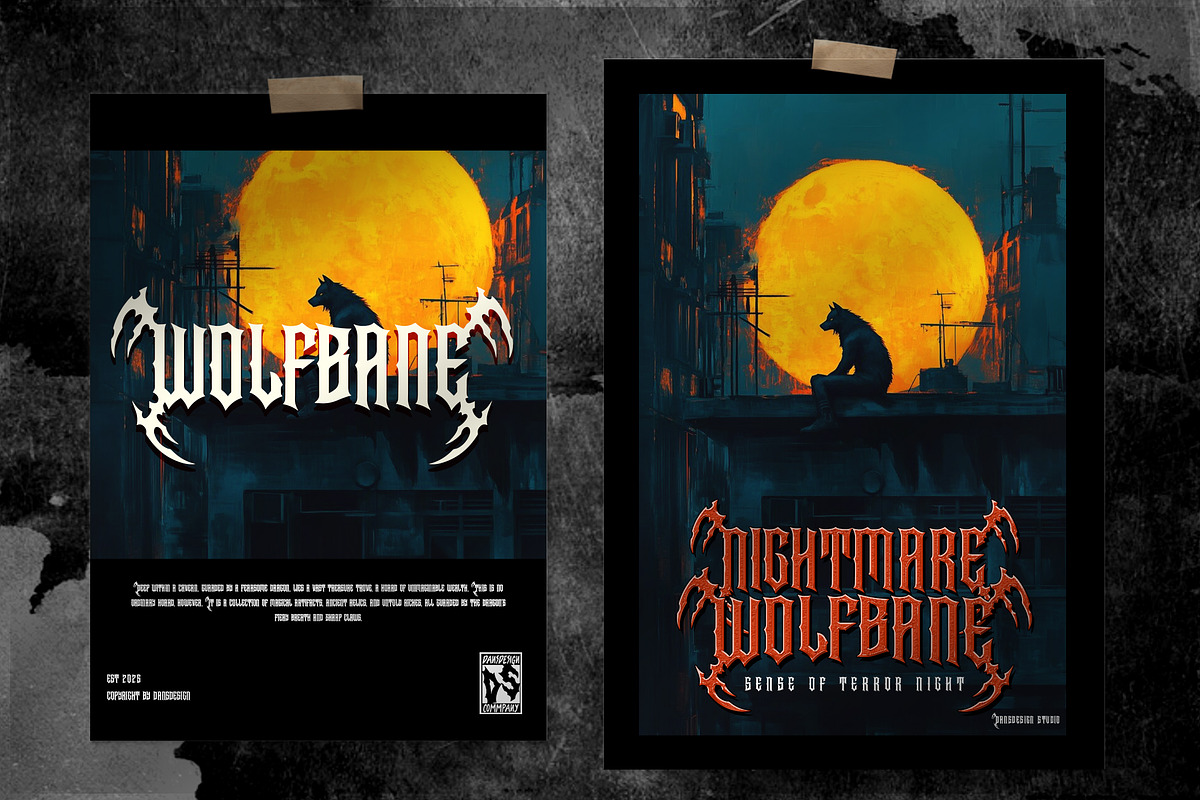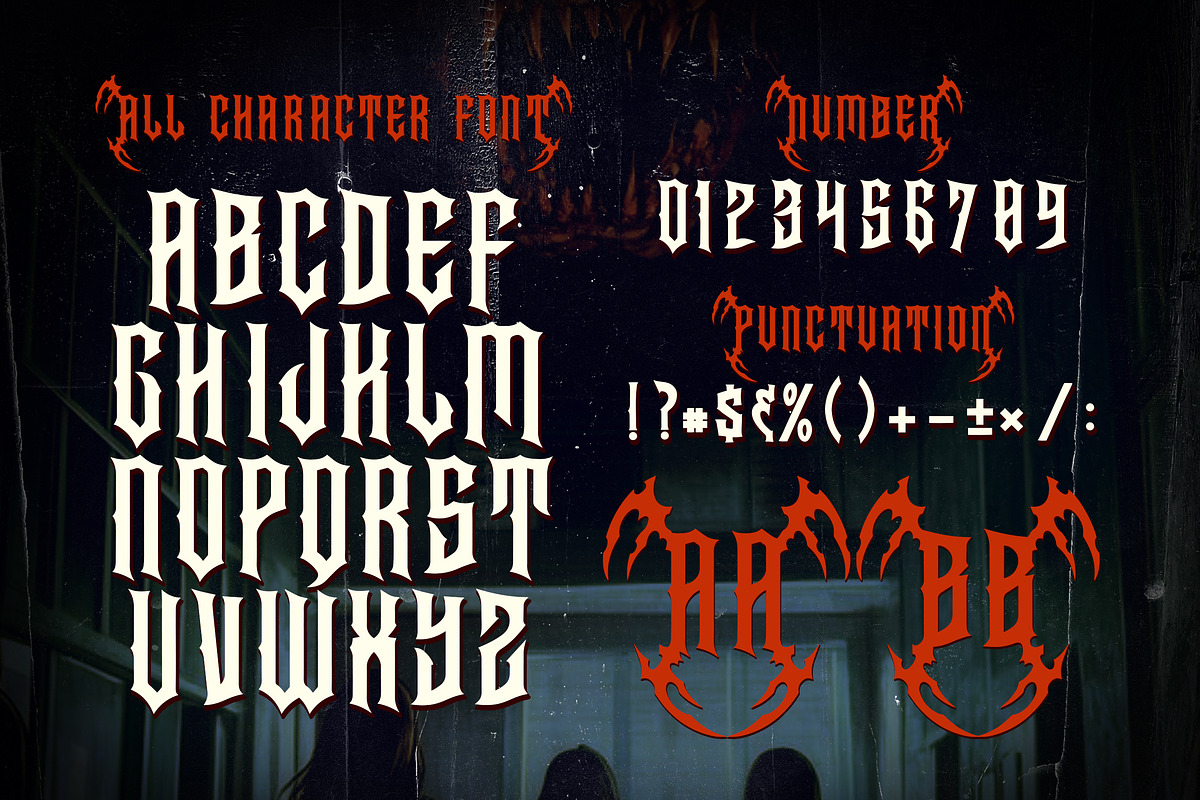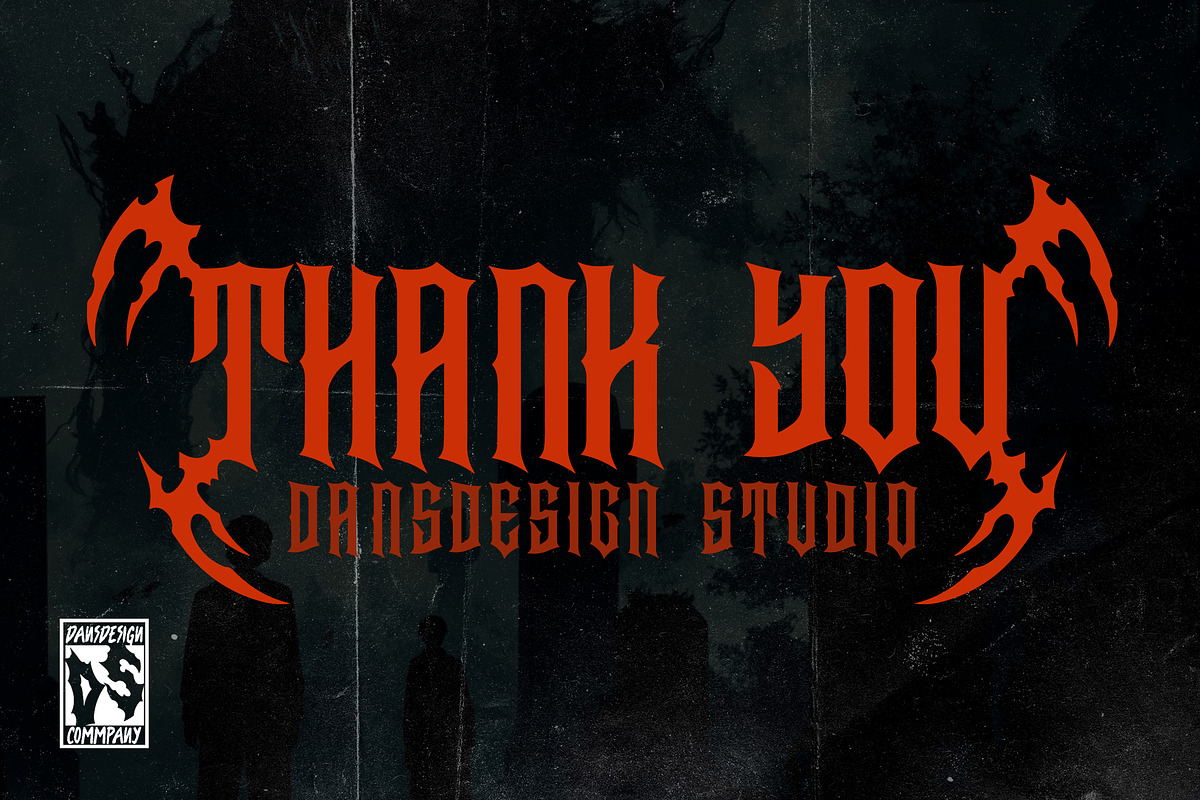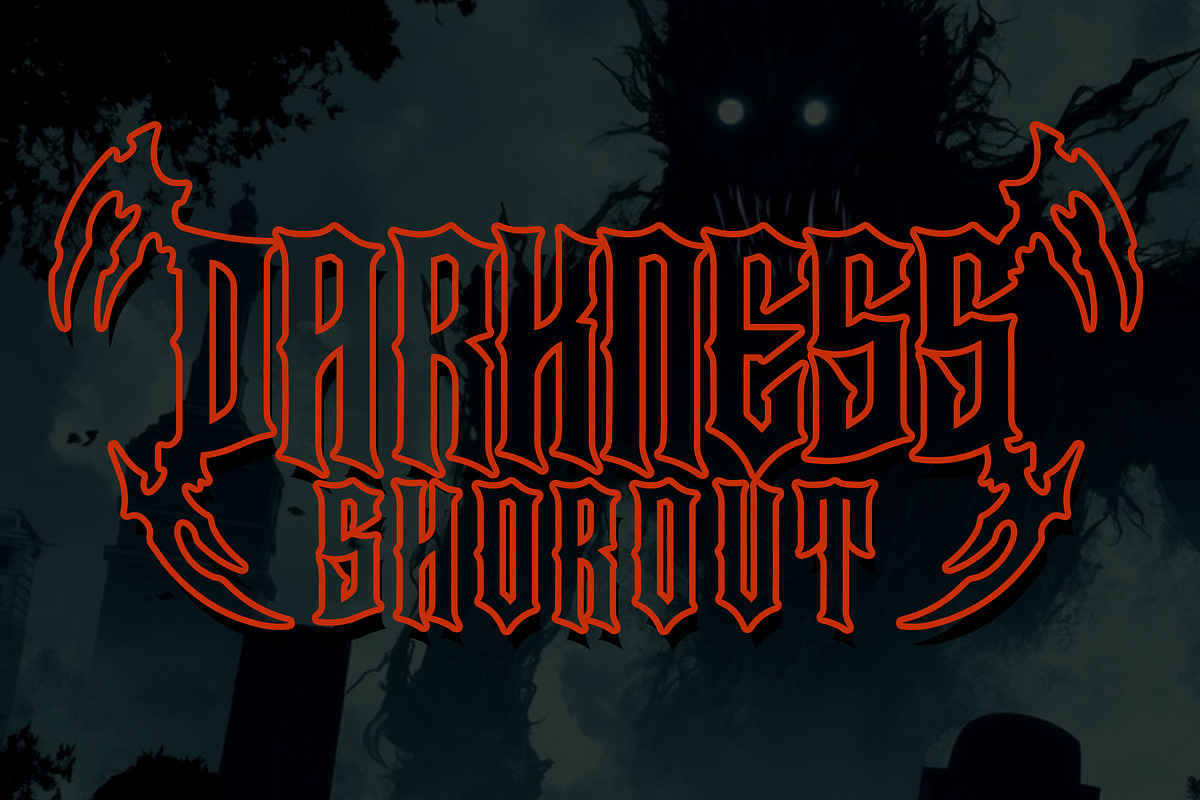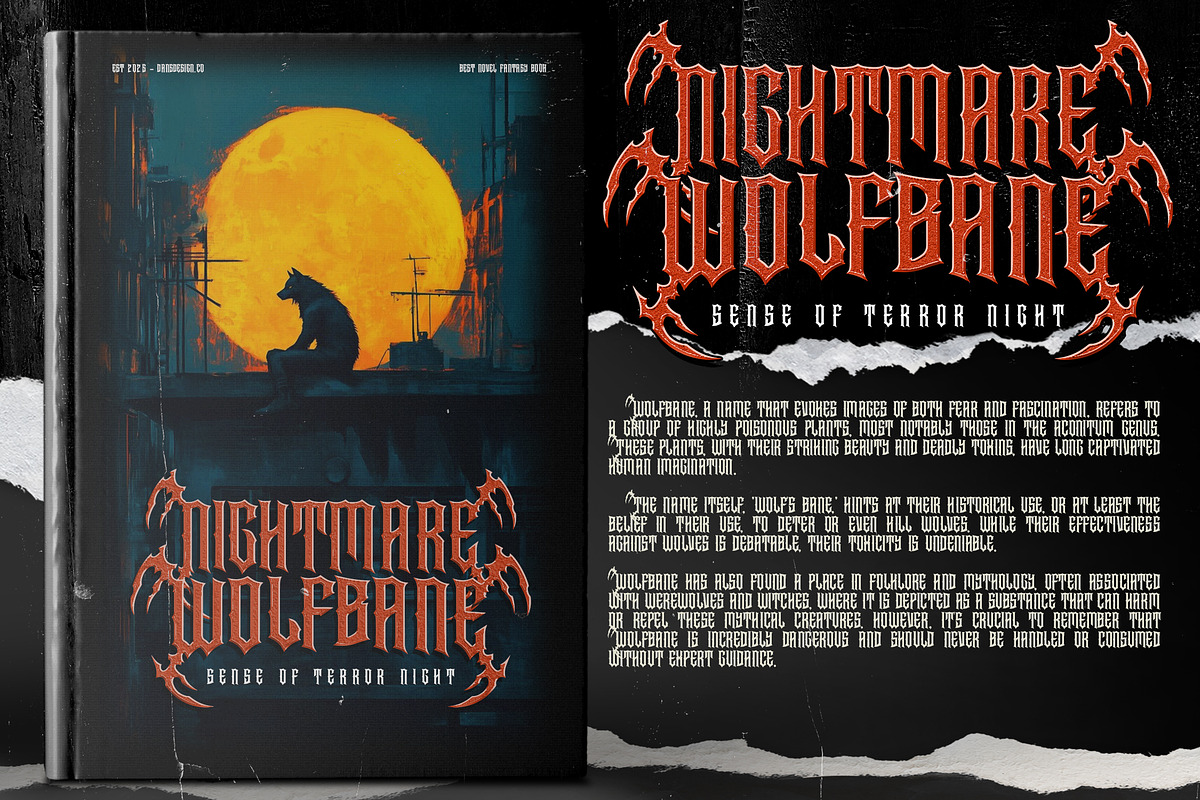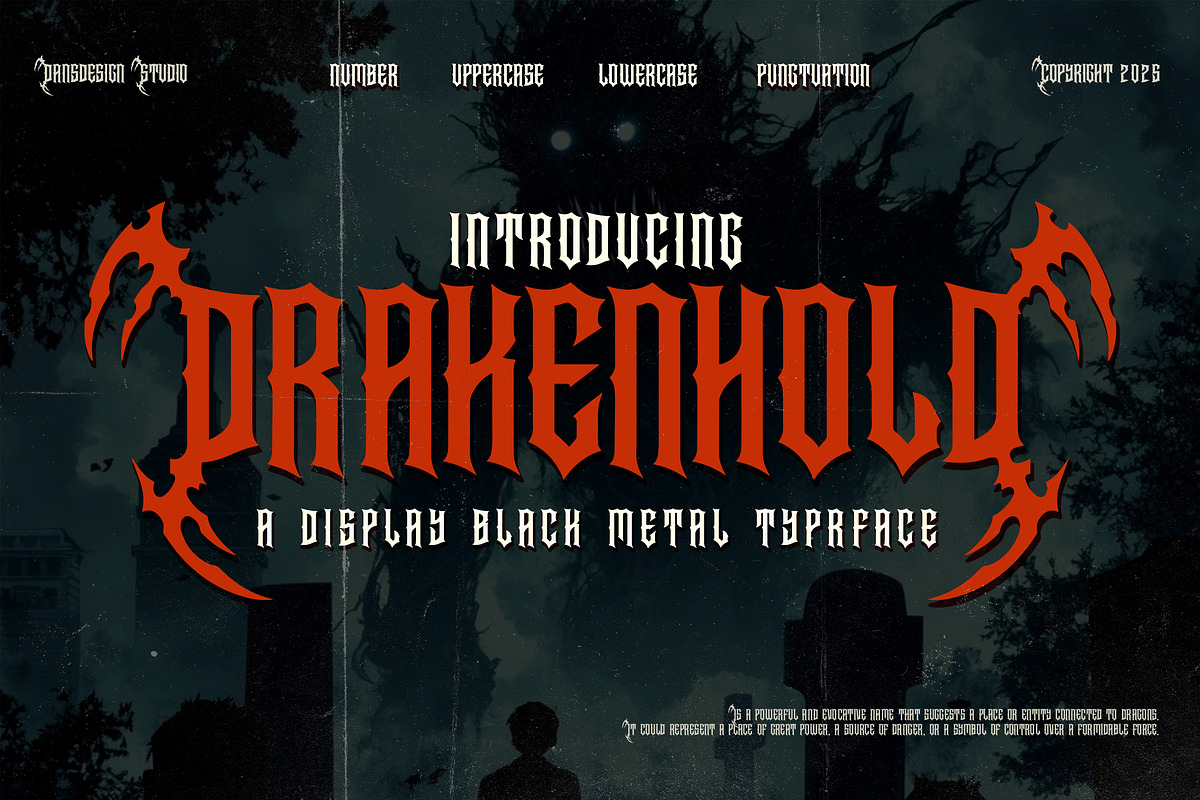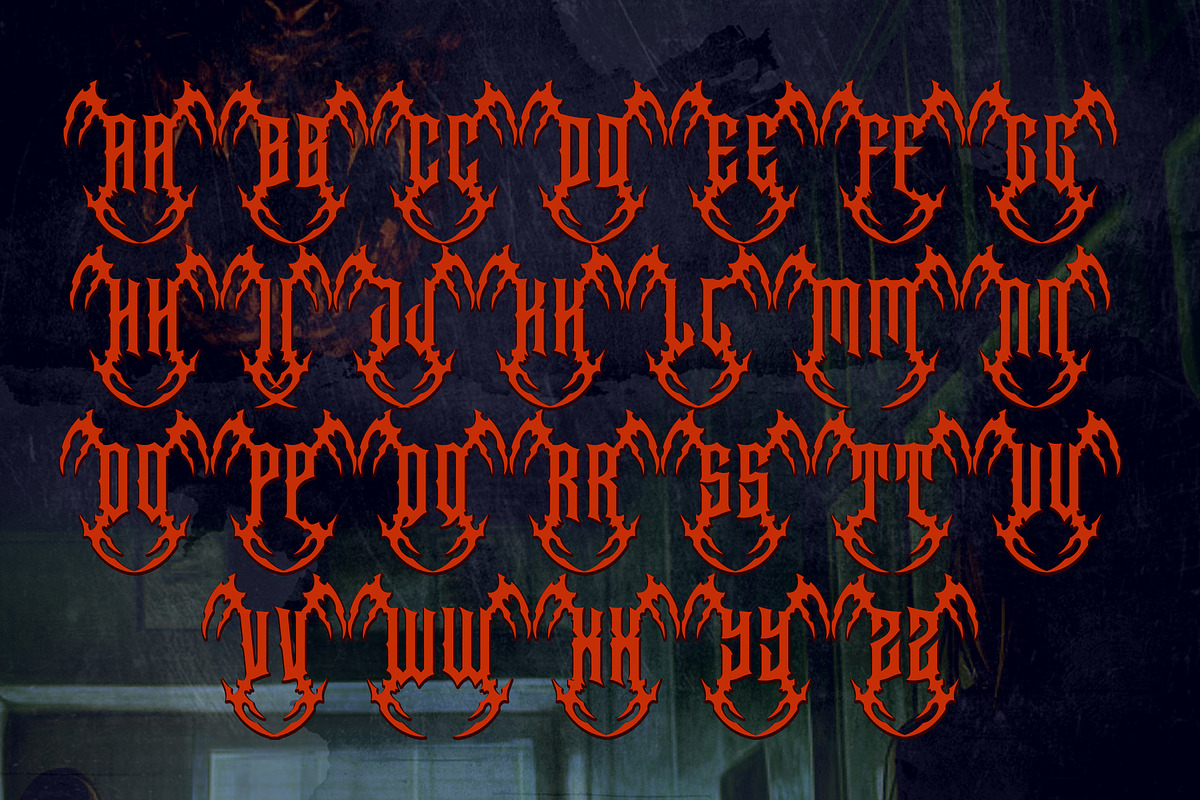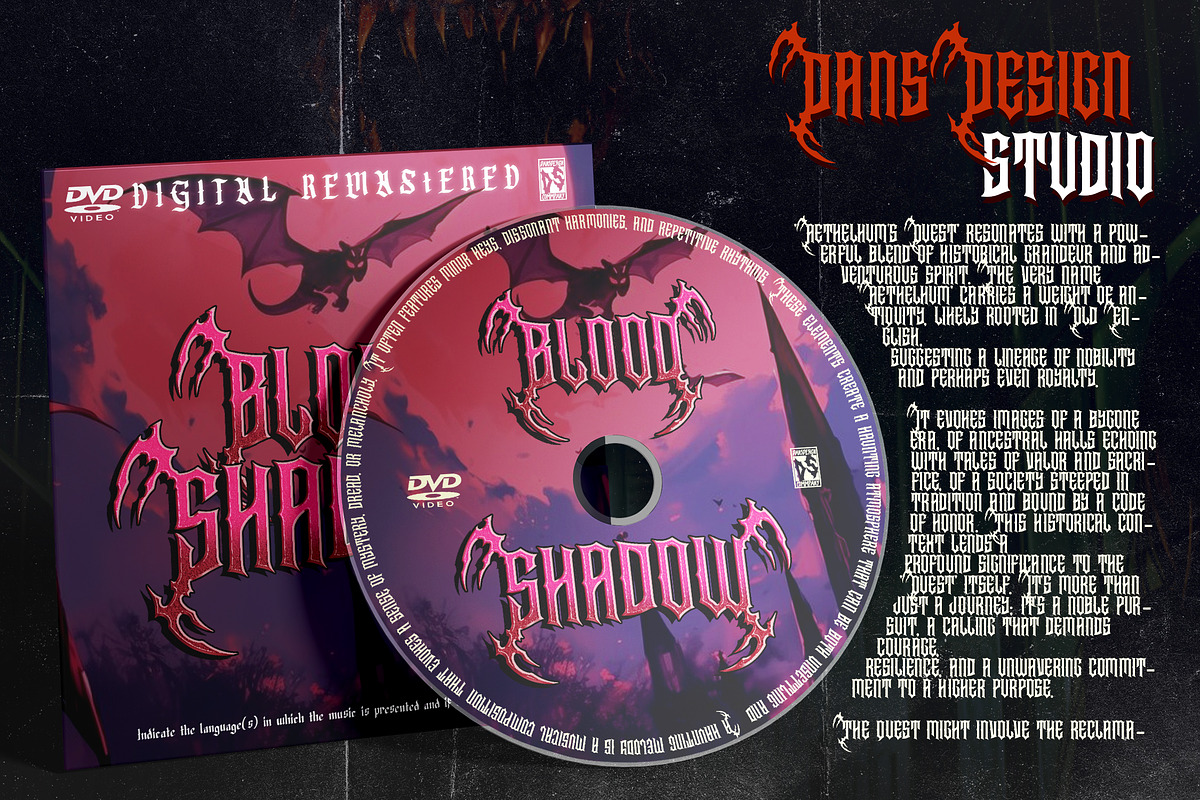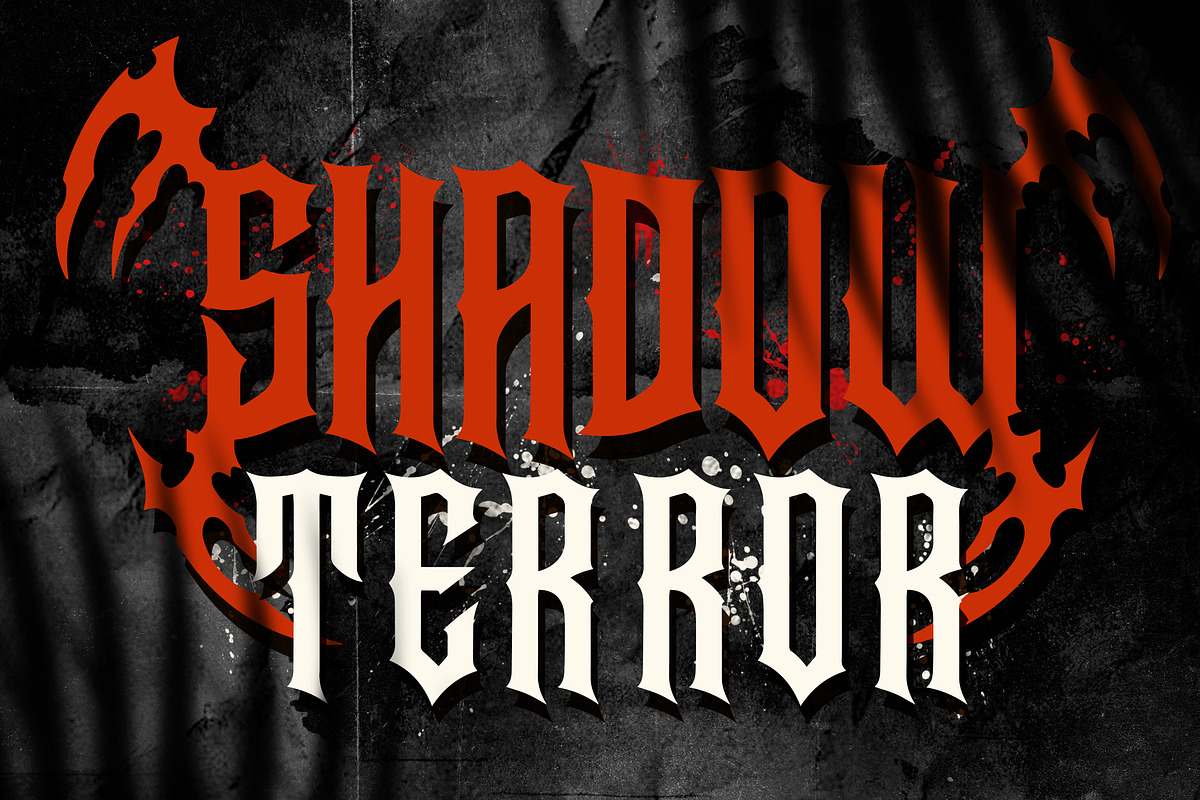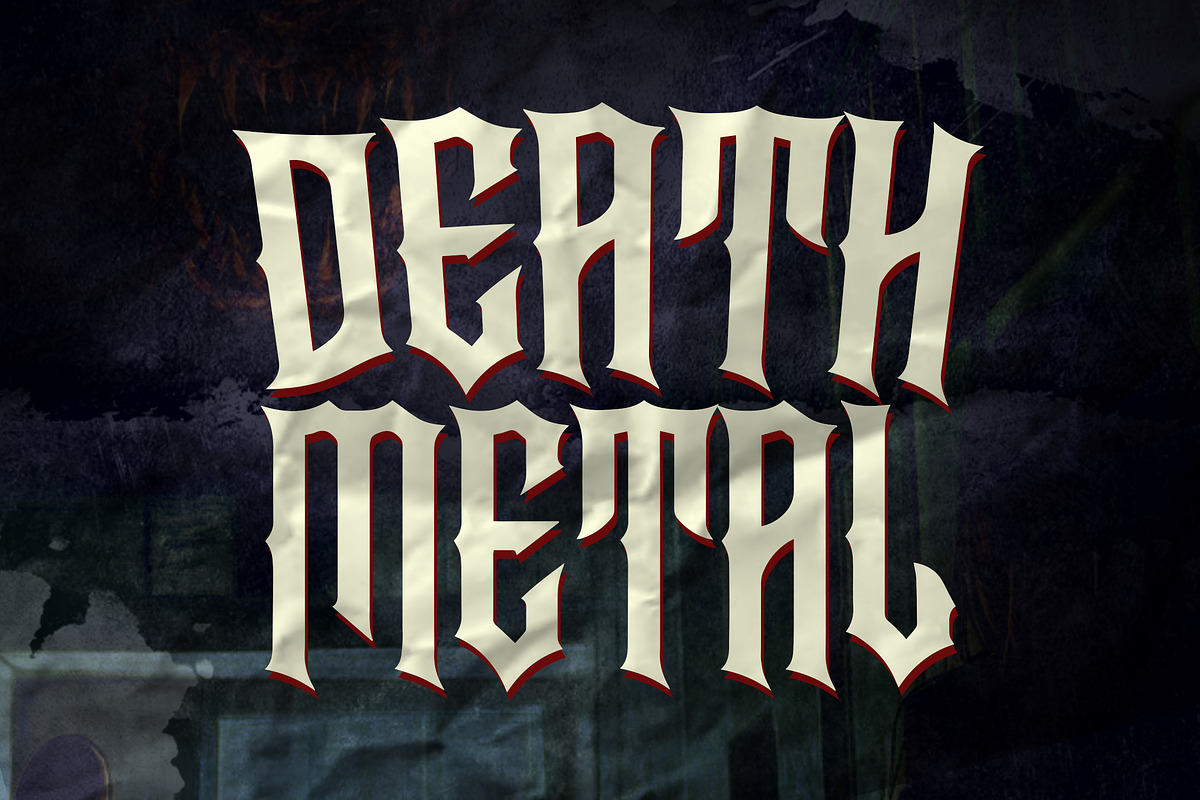
DRAKENHOLD Black Metal Display
DRAKENHOLD Black Metal Display Font
DRAKENHOLD Black Metal Display Font a distinct, highly detailed, and chic Blackletter font. It would make a great choice for exquisite retro-urban designs, tattoo business branding, logos, vintage designs, and more.
Featured : Accents (Multilingual characters) PUA encoded Numerals and Punctuation (OpenType Standard)